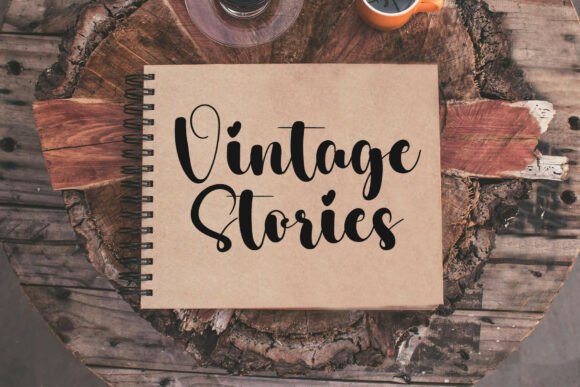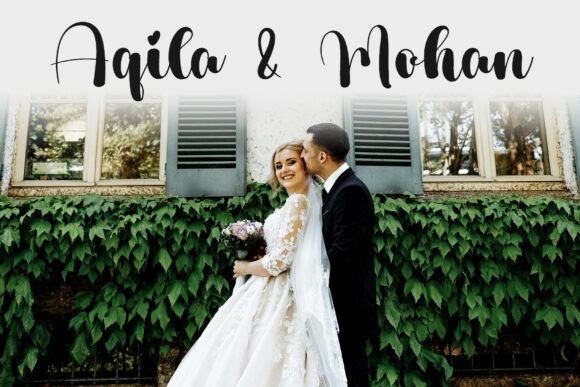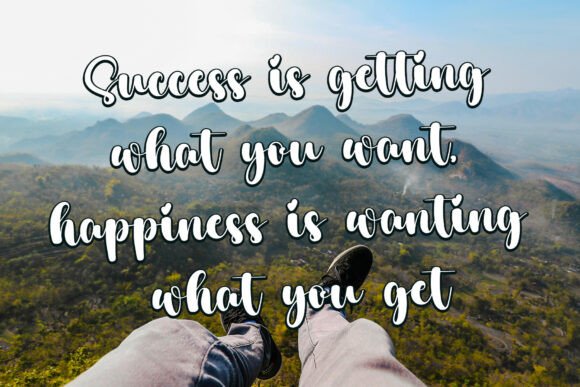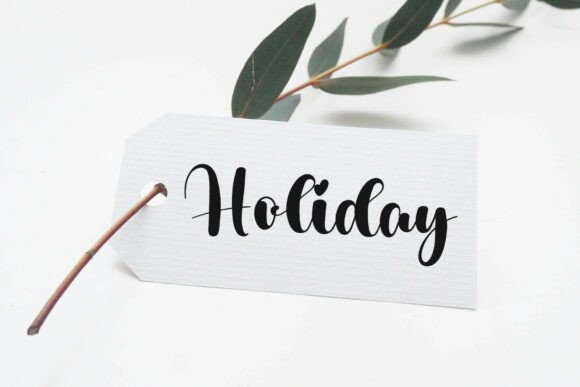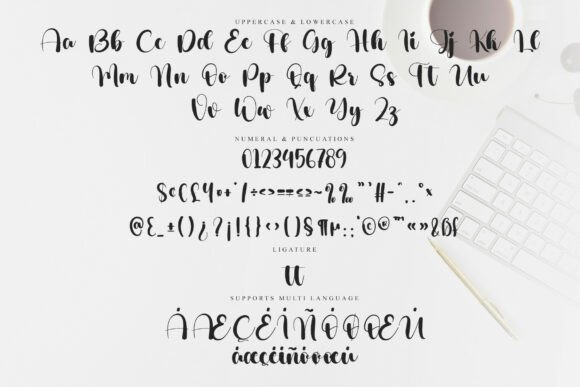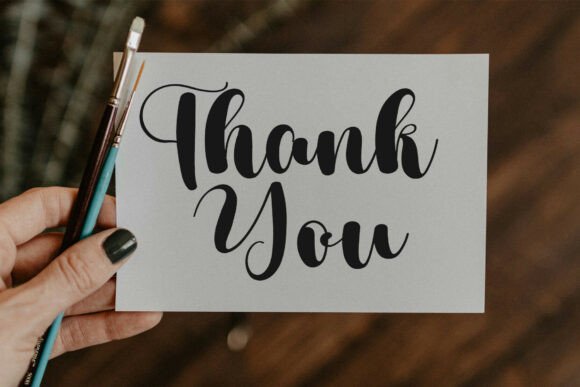
Introducing Bookish Font: The Epitome of Elegance and Timelessness
In the realm of typography, few fonts manage to strike a balance between elegance and boldness. Bookish Font is one such exceptional typeface that seamlessly merges the fluidity of script handwriting with a vintage touch, exuding class and sophistication. This stunning font is designed to make a lasting impression, whether you’re looking to craft a stylish signature, create a branding design, or evoke a nostalgic vintage aesthetic.
The Beauty of Bookish Font
Bookish Font boasts fluid strokes, graceful curves, and a dynamic flow that sets it apart from other typefaces. Its unique blend of script and vintage elements creates a distinctive look that is both refined and powerful. The font’s design is characterized by:
- Fluid Strokes: Bookish Font features smooth, connected strokes that give it a sense of fluidity and movement.
- Graceful Curves: The font’s curves are meticulously crafted to create a sense of elegance and sophistication.
- Dynamic Flow: The font’s dynamic flow ensures that it remains legible and visually appealing, even at larger sizes.
Bookish Font is an excellent choice for designers and crafters seeking to create a lasting impression. Its versatility makes it suitable for a wide range of applications, including:
- Branding Design: Use Bookish Font to create a unique and memorable brand identity that exudes elegance and sophistication.
- Signatures: Add a touch of class to your signature with Bookish Font, perfect for professionals and individuals looking to make a statement.
- Vintage Aesthetics: Create nostalgic designs that evoke a sense of timelessness and classic charm.
Why Choose Bookish Font?
With so many fonts available, why choose Bookish Font? Here are just a few compelling reasons:
- Unique Blend: Bookish Font’s distinctive blend of script and vintage elements sets it apart from other typefaces.
- Elegance and Sophistication: The font’s refined design ensures that your designs exude elegance and sophistication.
- Timeless Appeal: Bookish Font’s vintage touch ensures that your designs remain timeless and classic, avoiding the pitfalls of trendy typography.
Tips for Using Bookish Font
To get the most out of Bookish Font, consider the following tips:
- Pair with Neutral Backgrounds: Bookish Font shines on neutral backgrounds, allowing its elegance to take center stage.
- Experiment with Sizes: The font’s dynamic flow ensures that it remains legible and visually appealing at various sizes.
- Add Decorative Elements: Consider adding decorative elements, such as illustrations or graphics, to enhance the font’s vintage aesthetic.
Bookish Font is a stunning typeface that effortlessly combines elegance and boldness. Its unique blend of script and vintage elements makes it perfect for designers and crafters seeking to create a lasting impression. Whether you’re looking to craft a stylish signature, create a branding design, or evoke a nostalgic vintage aesthetic, Bookish Font is an excellent choice. With its fluid strokes, graceful curves, and dynamic flow, this font is sure to elevate your designs to new heights.